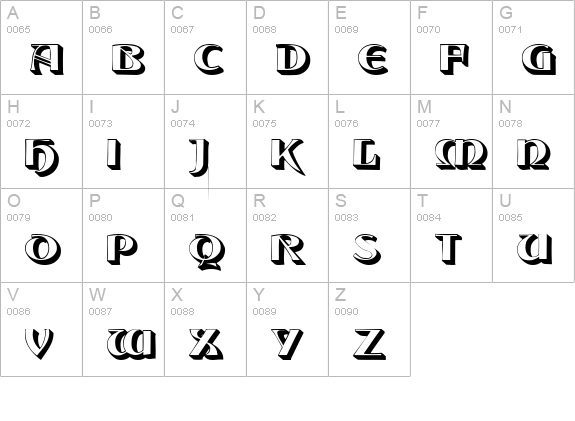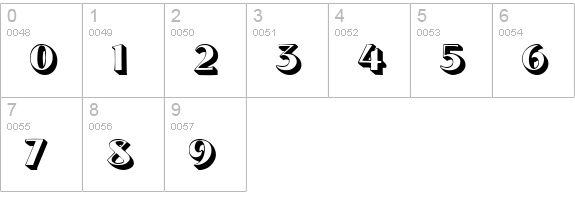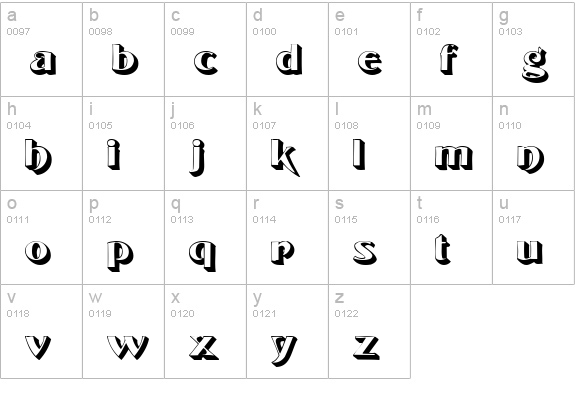
Tintoretto Font Details
Introducing Tintoretto, a captivating and versatile font that will bring your designs to life with its unique charm and elegance. This font embodies a perfect balance between modernity and classic beauty, making it suitable for a wide range of creative projects. With its clean lines and graceful curves, Tintoretto effortlessly captures attention and adds a touch of sophistication to any design. Whether you're working on a logo, branding materials, invitations, or any other creative endeavor, this font is sure to make a lasting impression. One of the standout features of Tintoretto is its versatility. It offers a wide range of weights and styles, allowing you to experiment and find the perfect fit for your project. From bold and impactful headlines to delicate and refined body text, Tintoretto has you covered. What makes Tintoretto even more appealing is that it is freely available to download at FontsMarket.com. Yes, you read that right! You can have this exquisite font at your fingertips without spending a dime. This means that you can bring your creative visions to life without any limitations, all while staying within your budget. Tintoretto is the epitome of elegance and style, making it a must-have for designers, creatives, and anyone who appreciates the power of beautiful typography. So why wait? Download Tintoretto today and let your imagination run wild with this remarkable font.